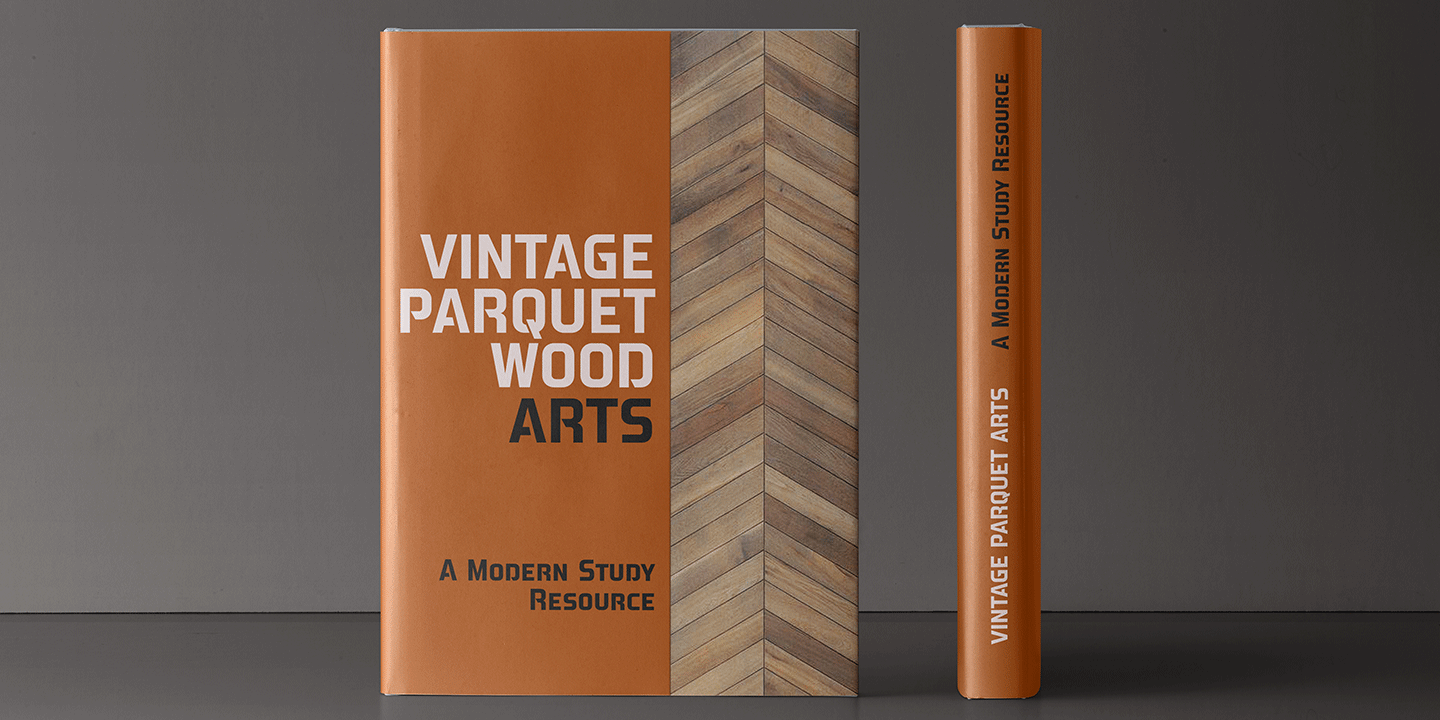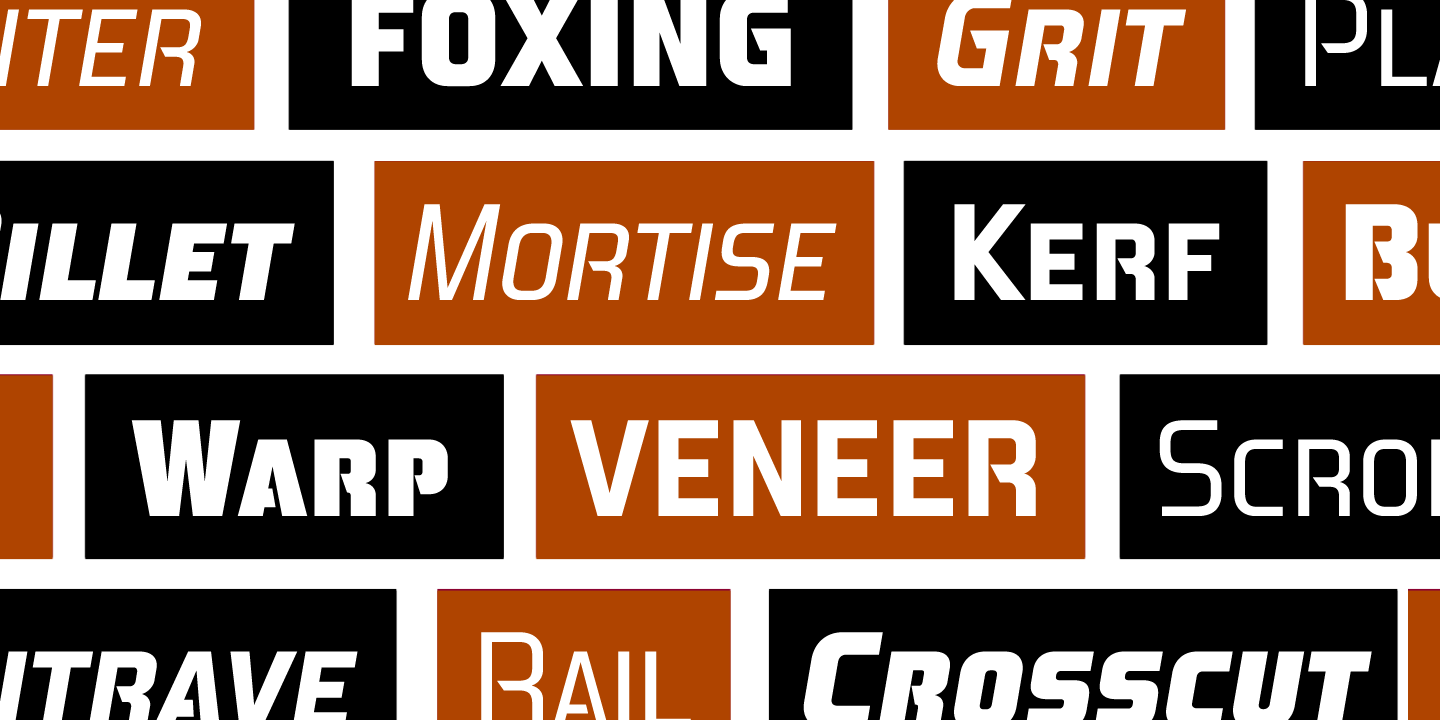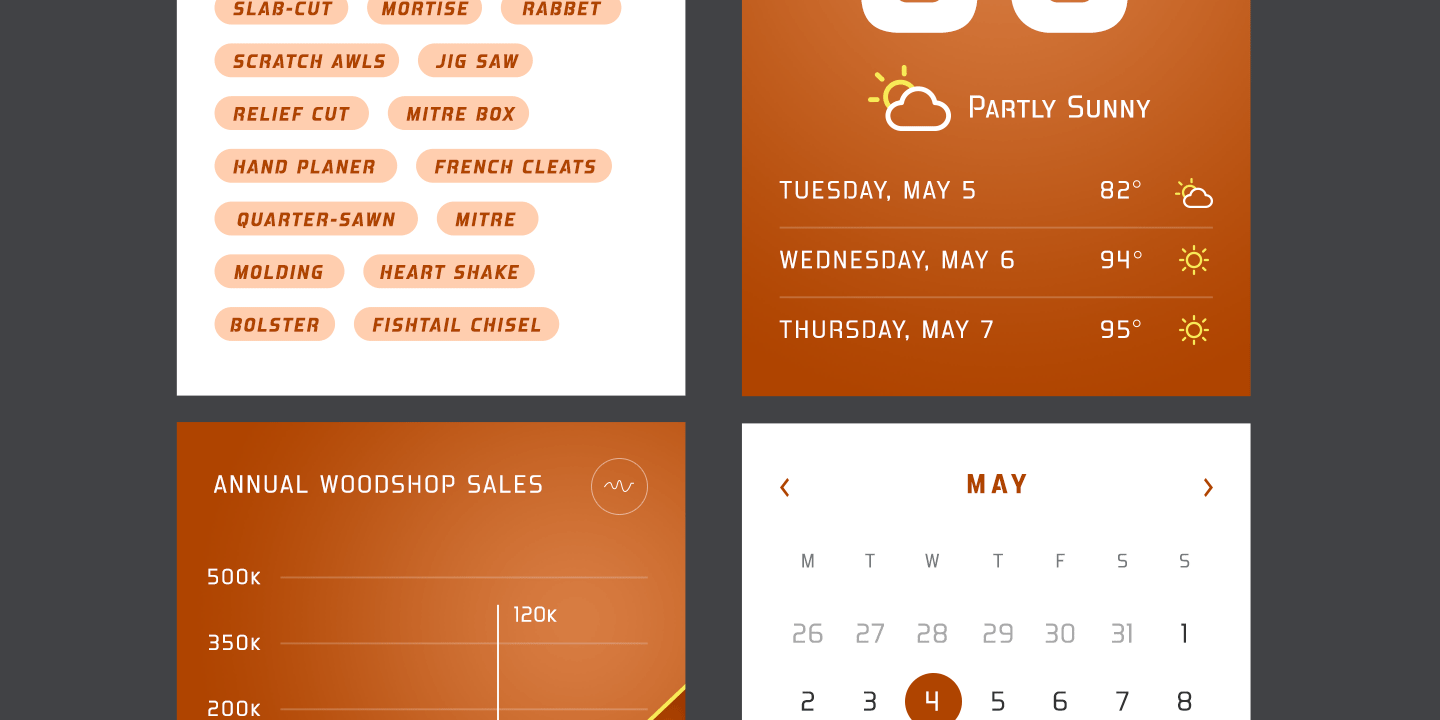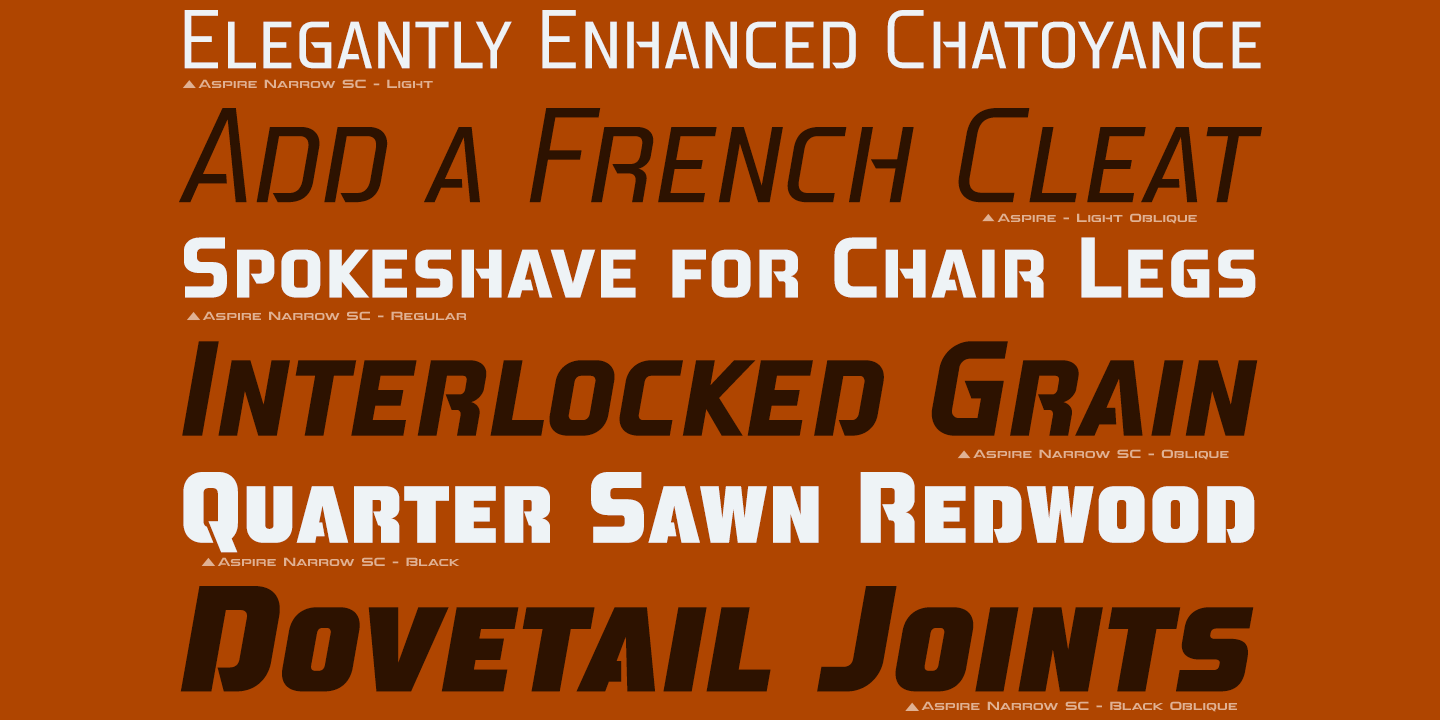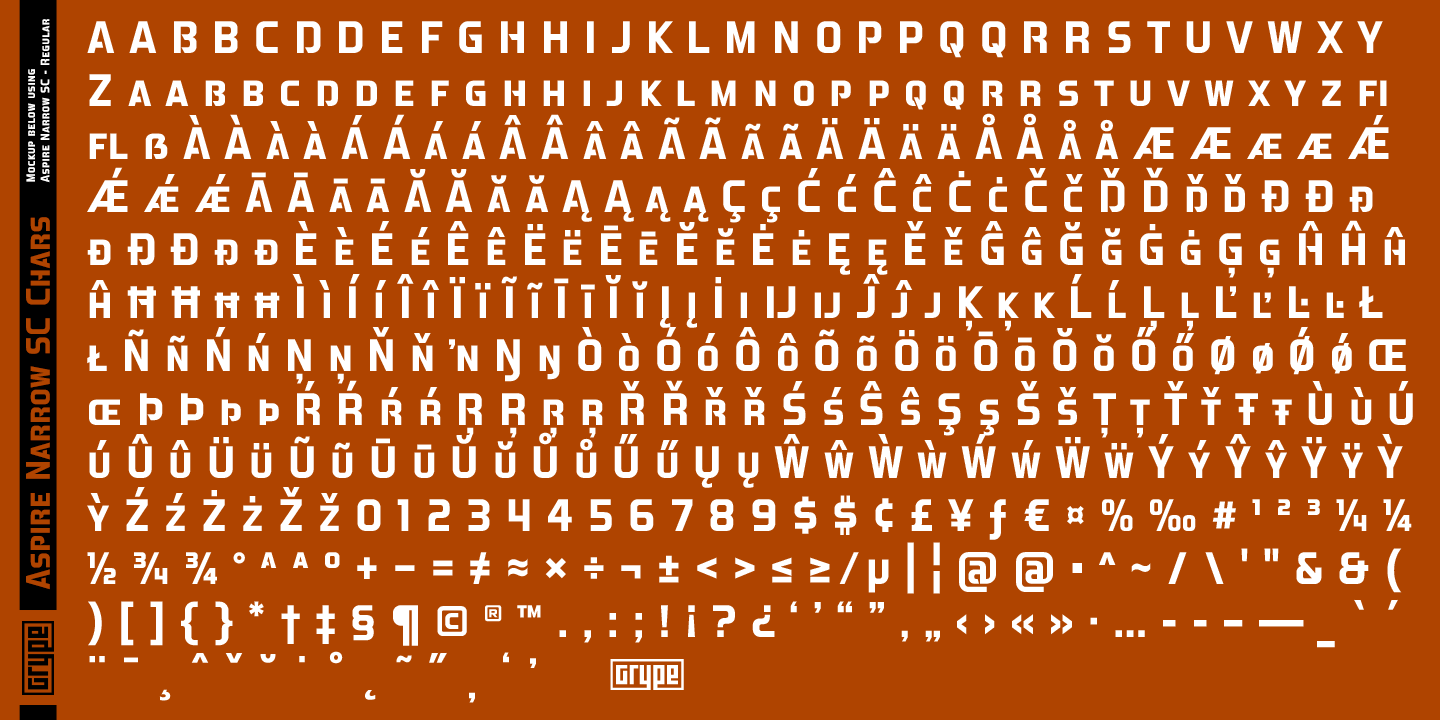
About Aspire Narrow Small Caps
While the Aspire SmallCaps family finds its roots of inspiration in the ACURA automotive company logo, with its wider base, the Aspire Narrow SmallCaps family condenses those styles into something more suitable for larger bodies of text in a more standardized…